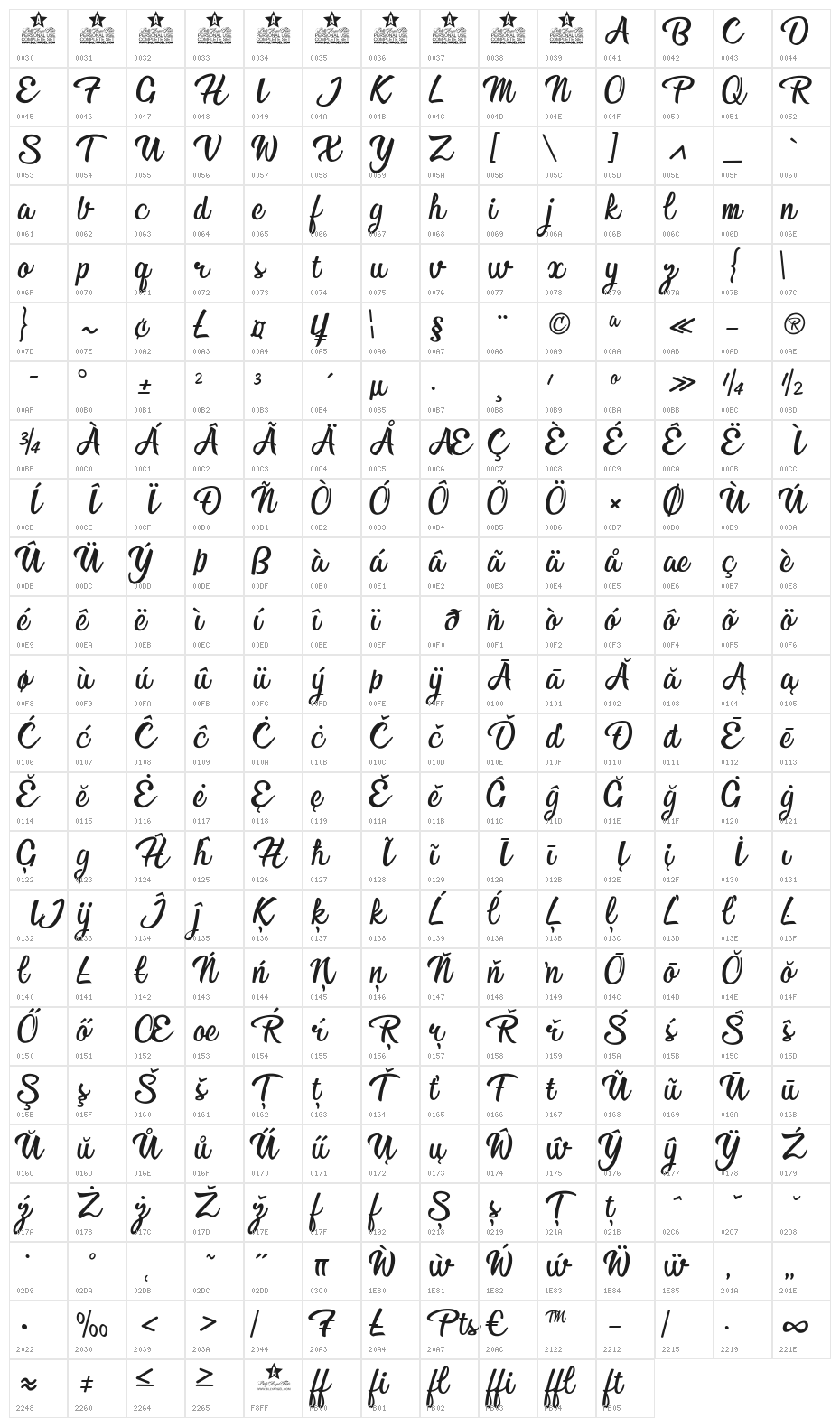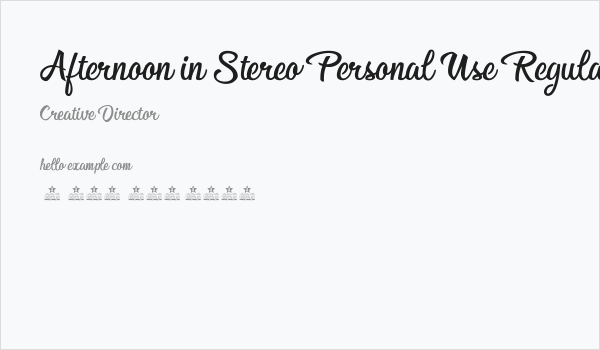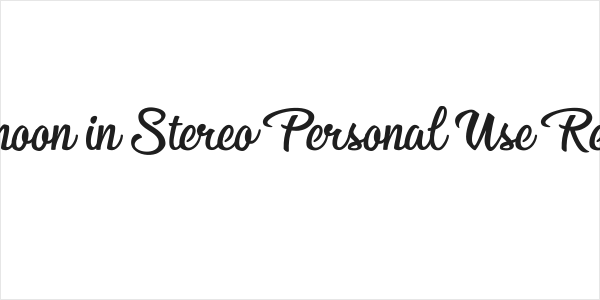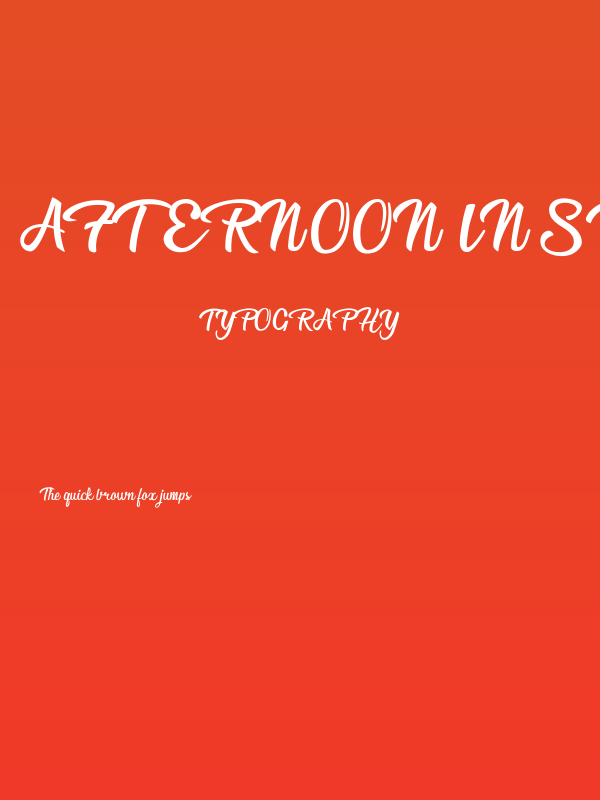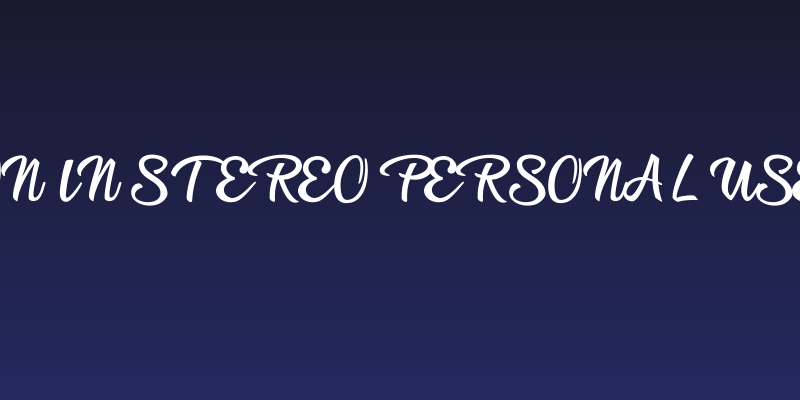
Afternoon in Stereo Personal Use Regular Font
Afternoon in Stereo Personal Use Regular Description
This font features a flowing, cursive style that exudes elegance and sophistication. The uppercase letters are slightly more upright, maintaining a sense of formality, while the lowercase letters have a more pronounced slant, adding a dynamic and lively touch. The strokes are smooth and connected, creating a seamless flow between characters. The overall appearance is both stylish and readable, making it suitable for a variety of design applications. The font's decorative nature is enhanced by its script-like quality, which is perfect for projects that require a personal or artistic flair.